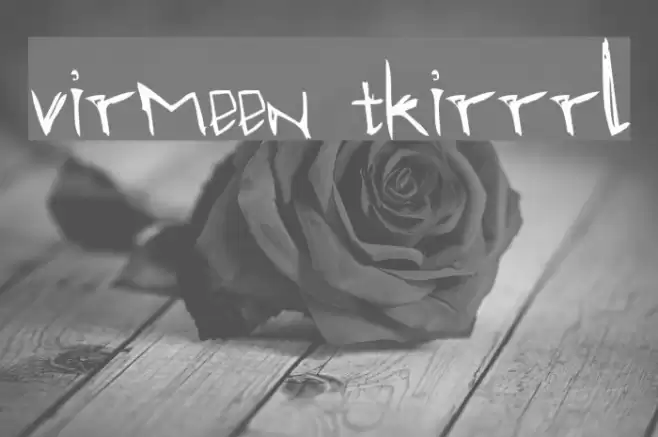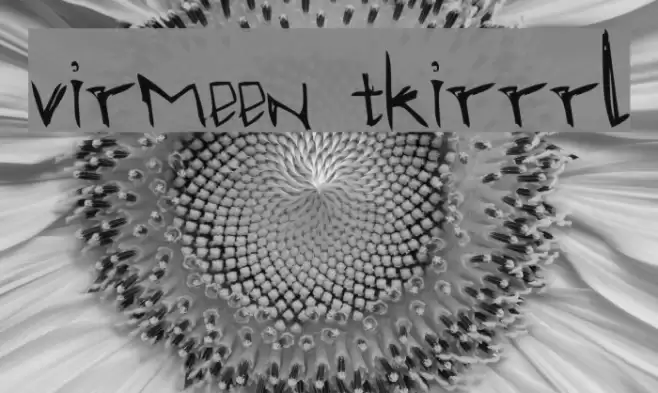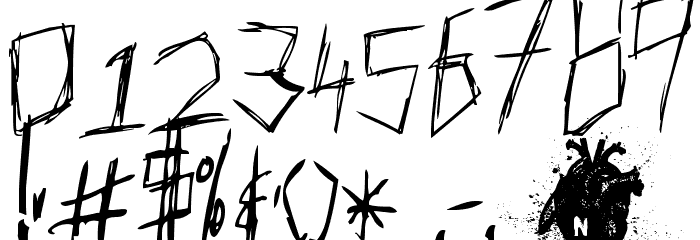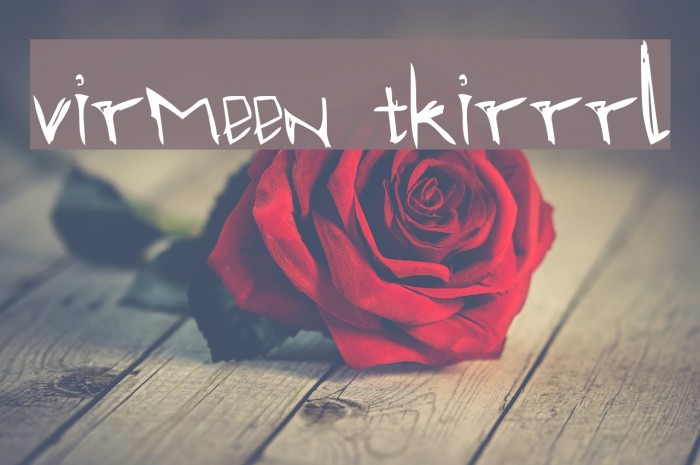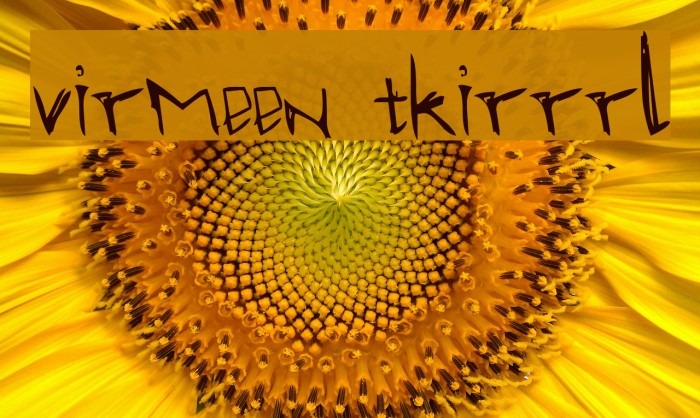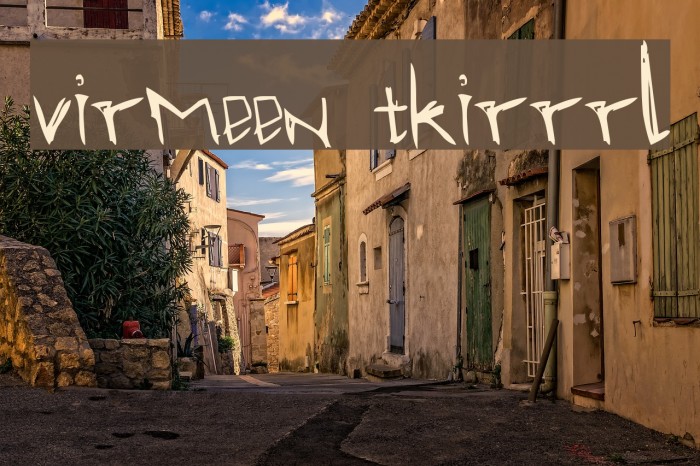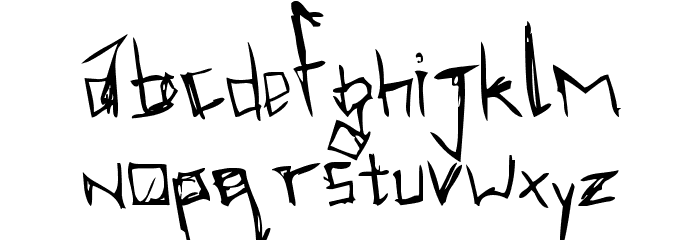
virmeen tkirrrl Font
virmeen tkirrrl Description
This font exhibits a raw, edgy style with a hand-drawn appearance. The characters are irregular and jagged, giving off a chaotic and rebellious vibe. The strokes are uneven, with some parts appearing thicker and others thinner, adding to the distressed look. The uppercase and lowercase letters maintain this rugged aesthetic, while the numbers and special characters follow suit with a similarly rough and unrefined design. This font is perfect for projects that require a grunge or punk rock feel, as it embodies a sense of nonconformity and artistic freedom.
A raw, edgy, hand-drawn font with a chaotic and rebellious vibe from Handwritten fonts.
- Proposed Projects: Album covers, band posters, street art designs, edgy branding, and alternative magazine layouts.
- Overall Style: Grunge, Punk, Artistic
- Use Case: Logos, Posters, Album covers